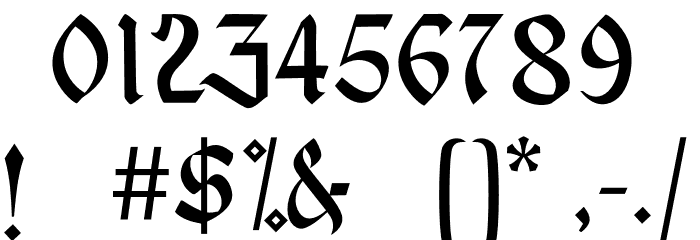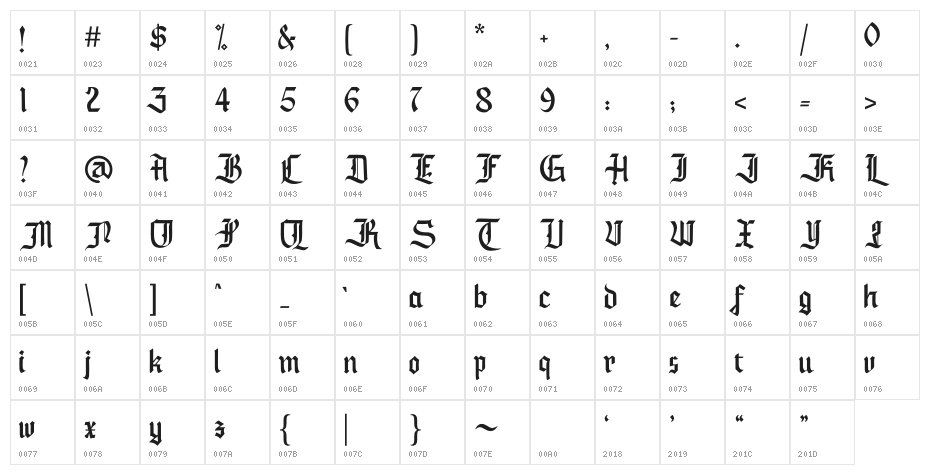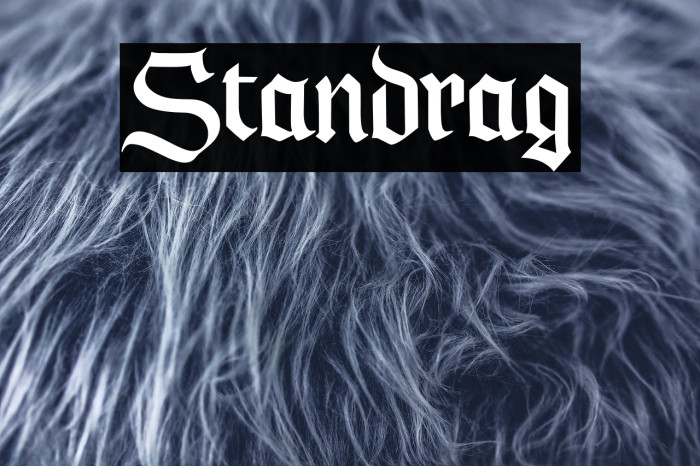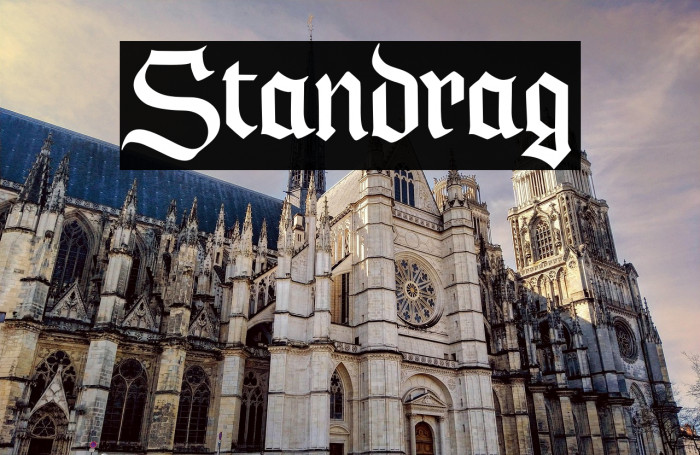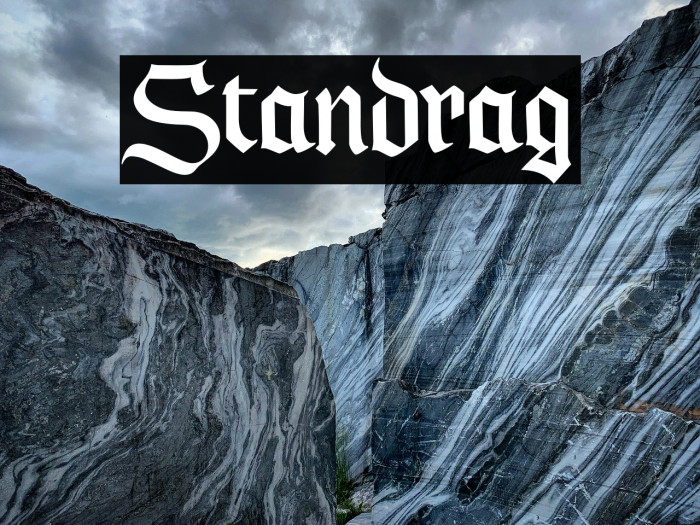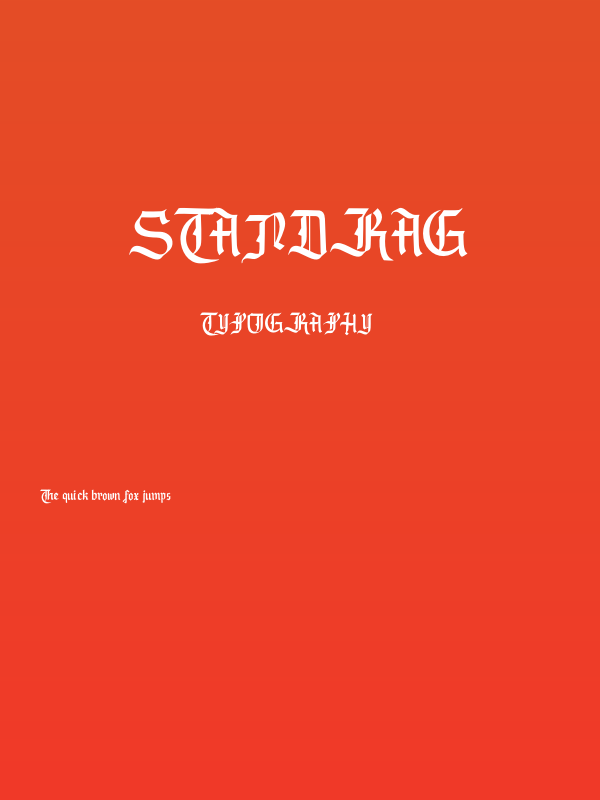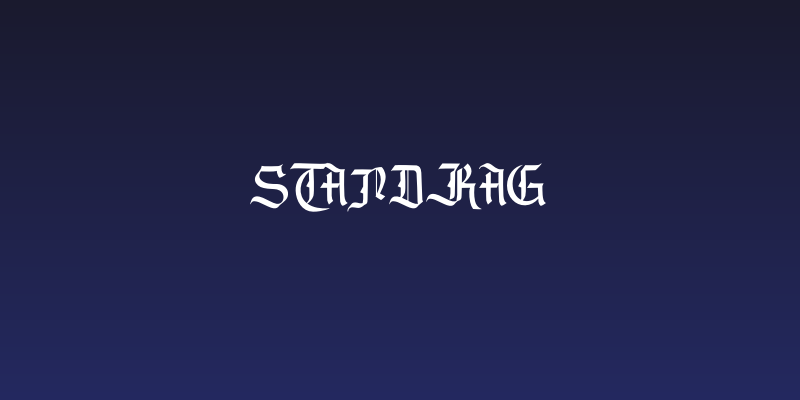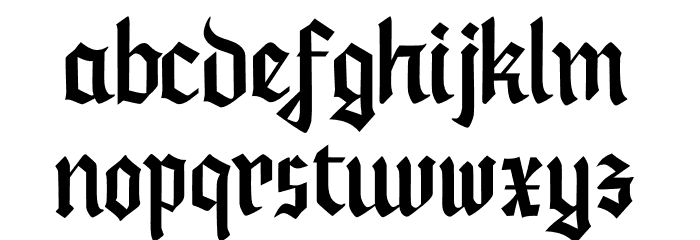
Standrag Font
Standrag Description
This font exhibits a classic blackletter style, characterized by its intricate and ornate letterforms. The uppercase letters are bold and angular, with sharp edges and a medieval aesthetic. The lowercase letters maintain the same decorative style, with a slightly more rounded appearance, yet still retaining the traditional blackletter flair. The numerals are consistent with the overall theme, featuring sharp angles and a distinct old-world charm. Special characters are designed to match the elaborate style, making this font suitable for projects that require a historical or gothic touch.